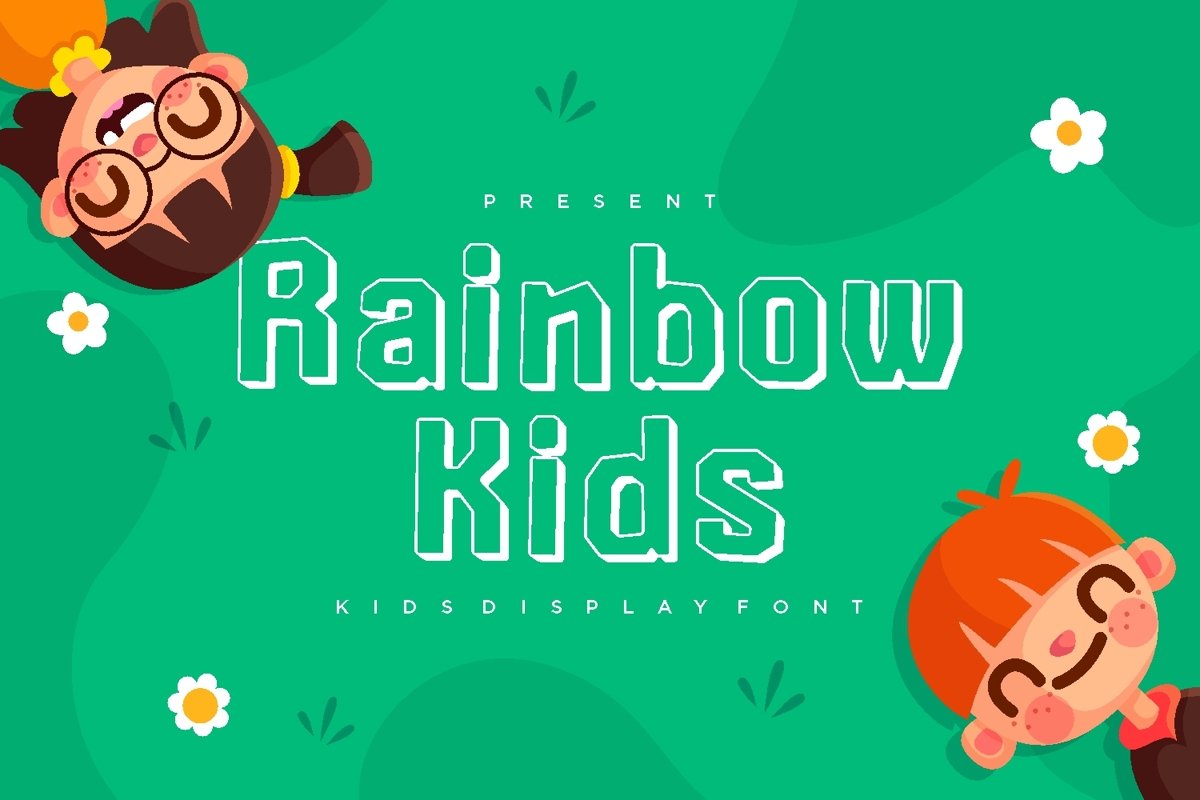
Rainbow Kids is sans serif display come with kids themes. We wanted to create the most unique character with shadow effects. It matches applies in some designs such as the logotype, brand, packaging, quotes, cute poster, kids shirt, cover book, birthday invitation and more custom design. The features uppercase, lowercase, numeral, punctuation & symbol, multilingual support.